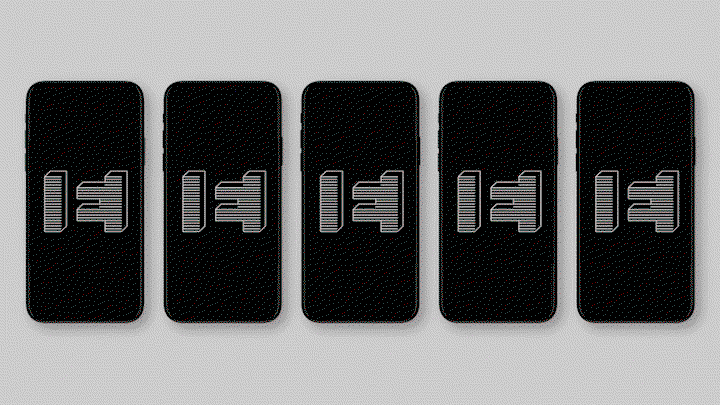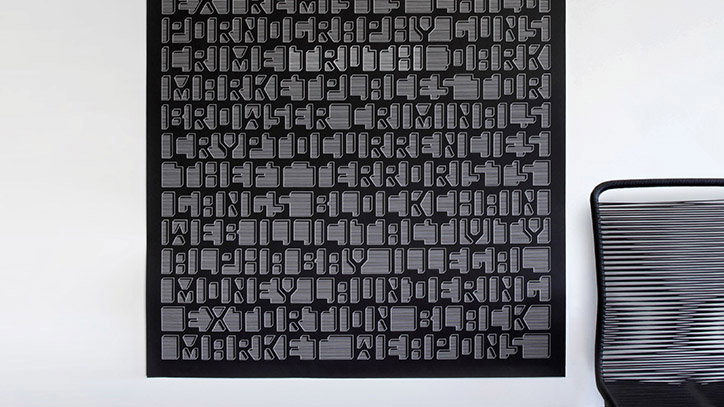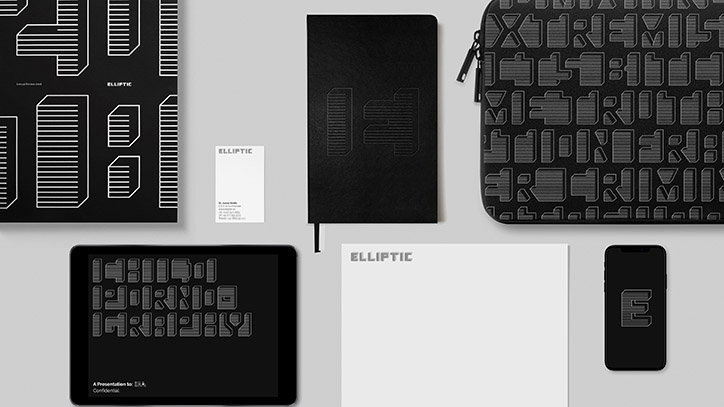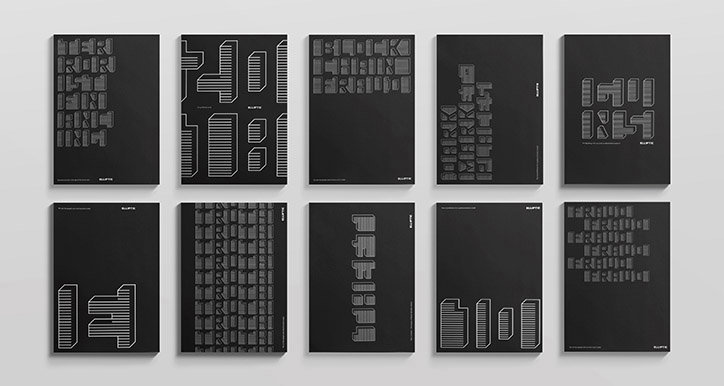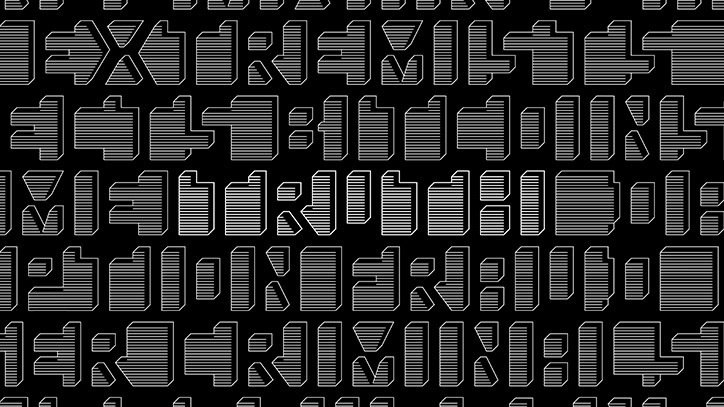
Superunion rebrands detective company with visual identity that mirrors its services
Superunion has redesigned detective company Elliptic’s visual identity to mirror its services. Elliptic investigates online crime, such as terrorism, child pornography and arms trafficking, by deciphering the difficult and complicated cryptocurrencies that conceal these illicit activities. Superunion’s updated visual language mirrors the complicated processes used by Elliptic to track criminal activity.
The result is a thickset, three-dimensional monochrome typeface that has been made deliberately difficult to read. Inspired by the rough, digital look of blockchain, a public online account that documents the transition made in cryptocurrency, Superunion has crafted an authentic visual representation of the work Elliptic does, making it easier to understand.
An example of Superunion’s astute representation of Elliptic as truth-hunters is a poster that includes the words “fraud”, “extortion and “terrorists” hidden in the disorienting backdrop. The word “truth” is fittingly written in the middle of the poster, made distinguishable by its lighter tone of grey.
“The legibility is deliberately challenging to echo the difficult task Elliptic undertakes and its simple black and white colour palette reflects the seriousness of the issue and the importance of the legal cases that rely on Elliptic’s intelligence,” Superunion writes on its website. For the agency’s logo, Superunion crafted an inverted version of the typeface, presenting Elliptic’s “E” in a positive light.